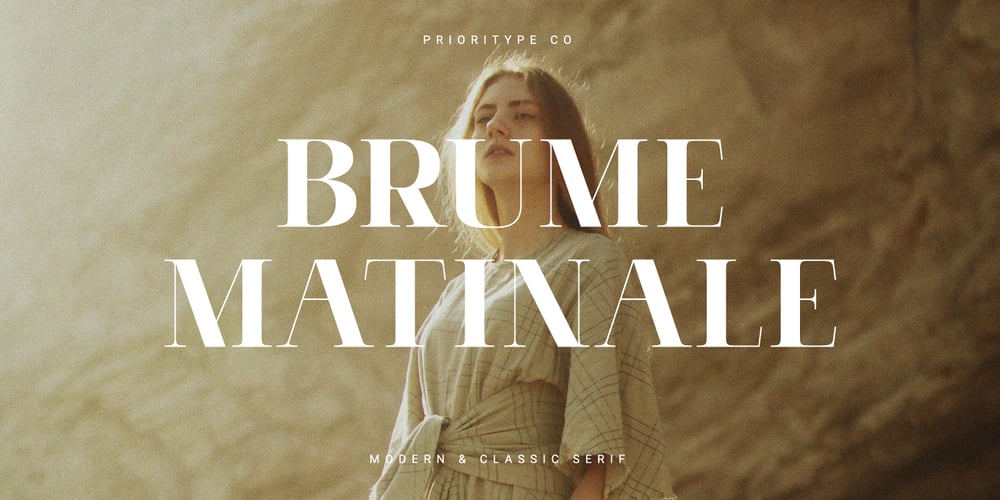
Brume Matinale
Brume Matinale font
Brume Matinale Font Family was designed by Prio Nurokhim Aji and published by Prioritype. Brume Matinale contains 1 styles and family package options. A typeface inspired by the world of fashion with a modern and classic look. Yes, Brume Matinale is here for you to use in designs such as creative posts, posters, magazines, logos and so on. Features: Uppercase, Lowercase, Numeral, Punctuation & Multilingual.Thanks!